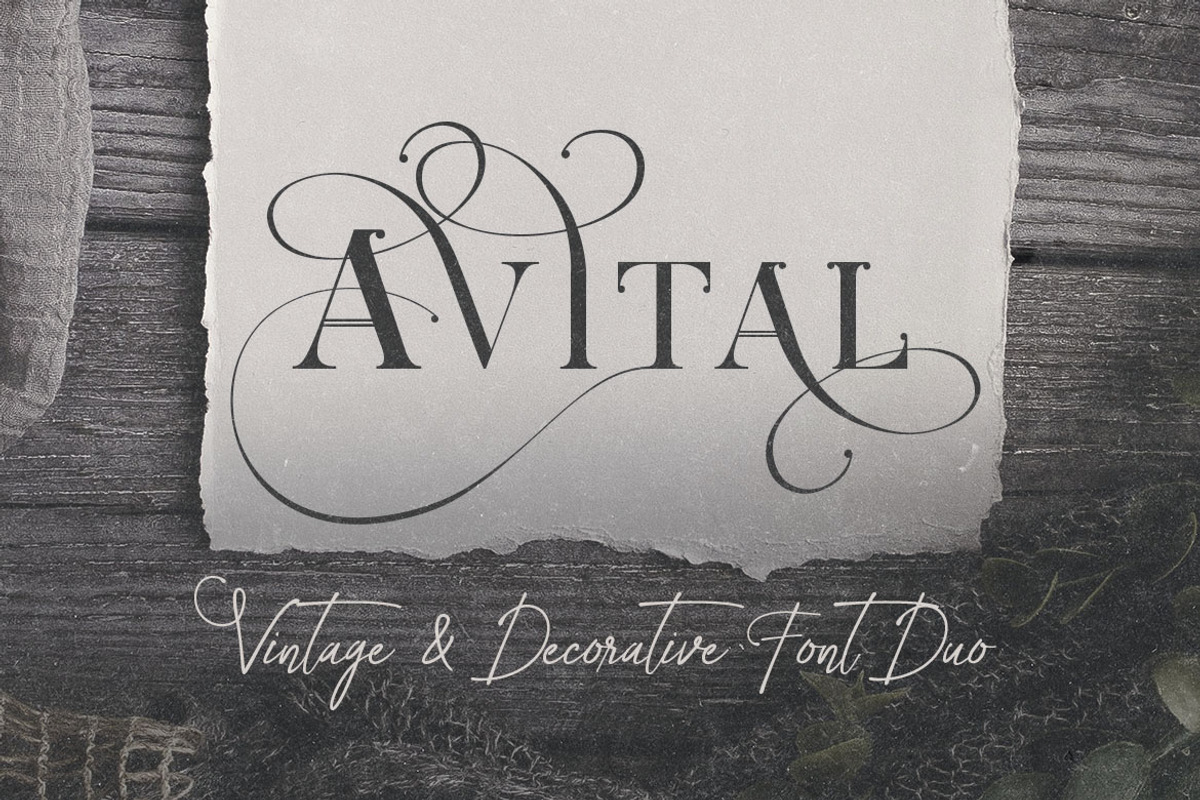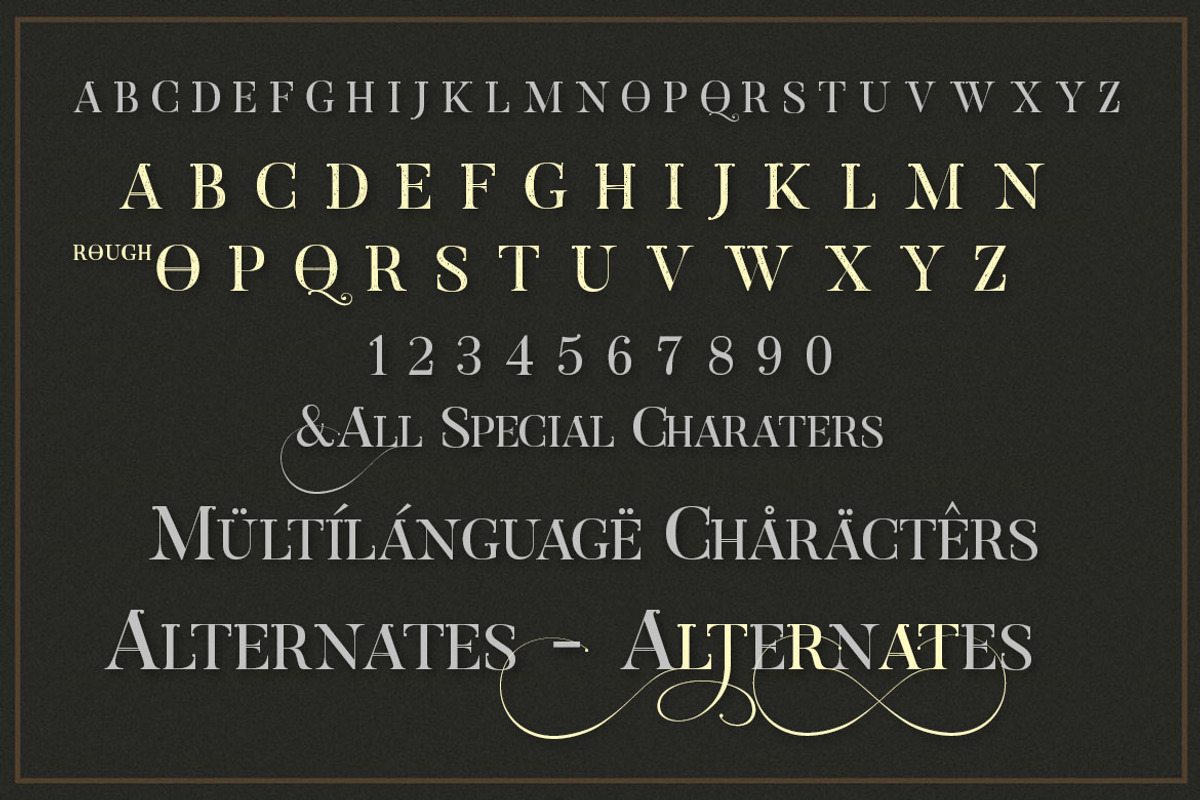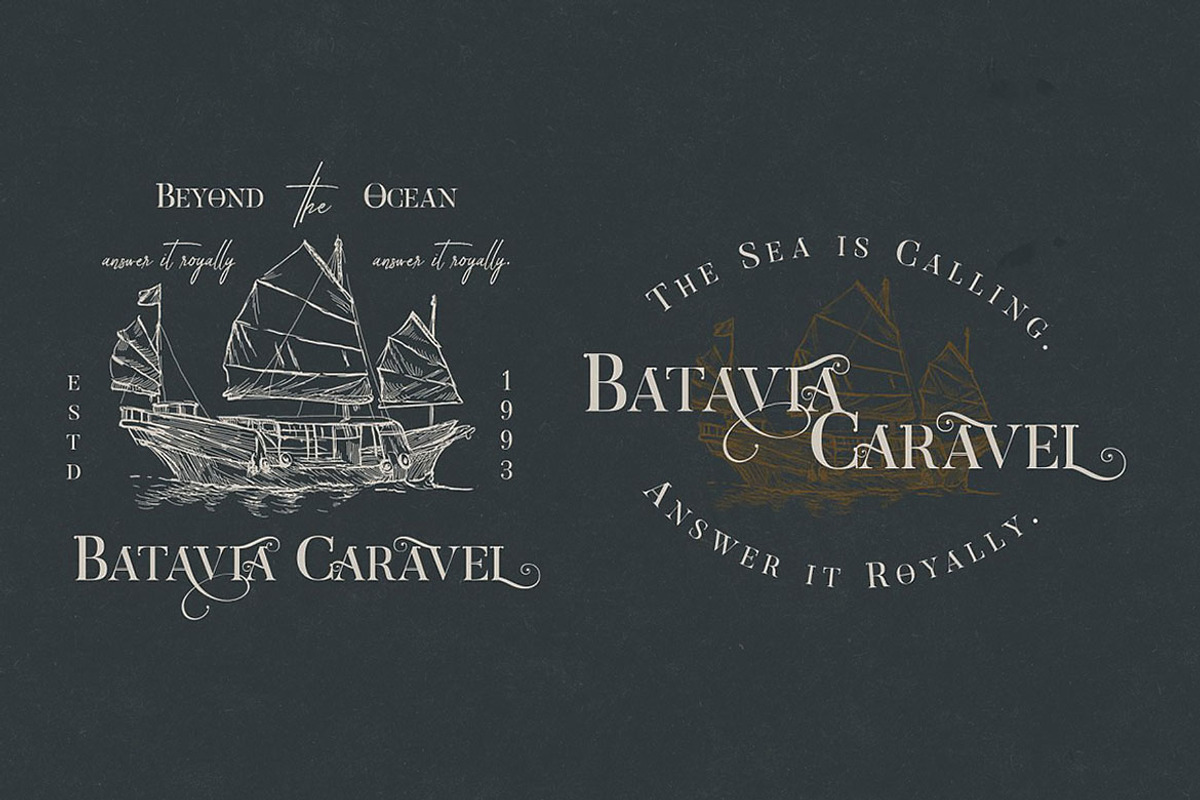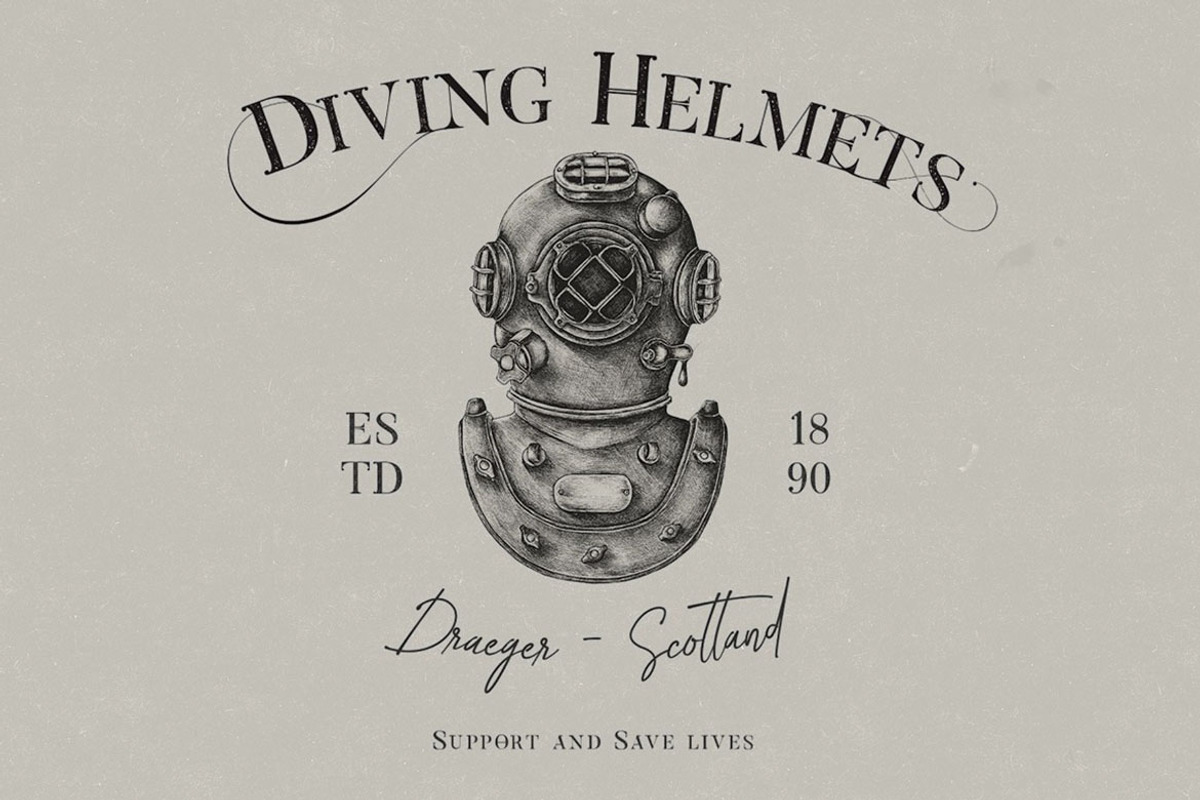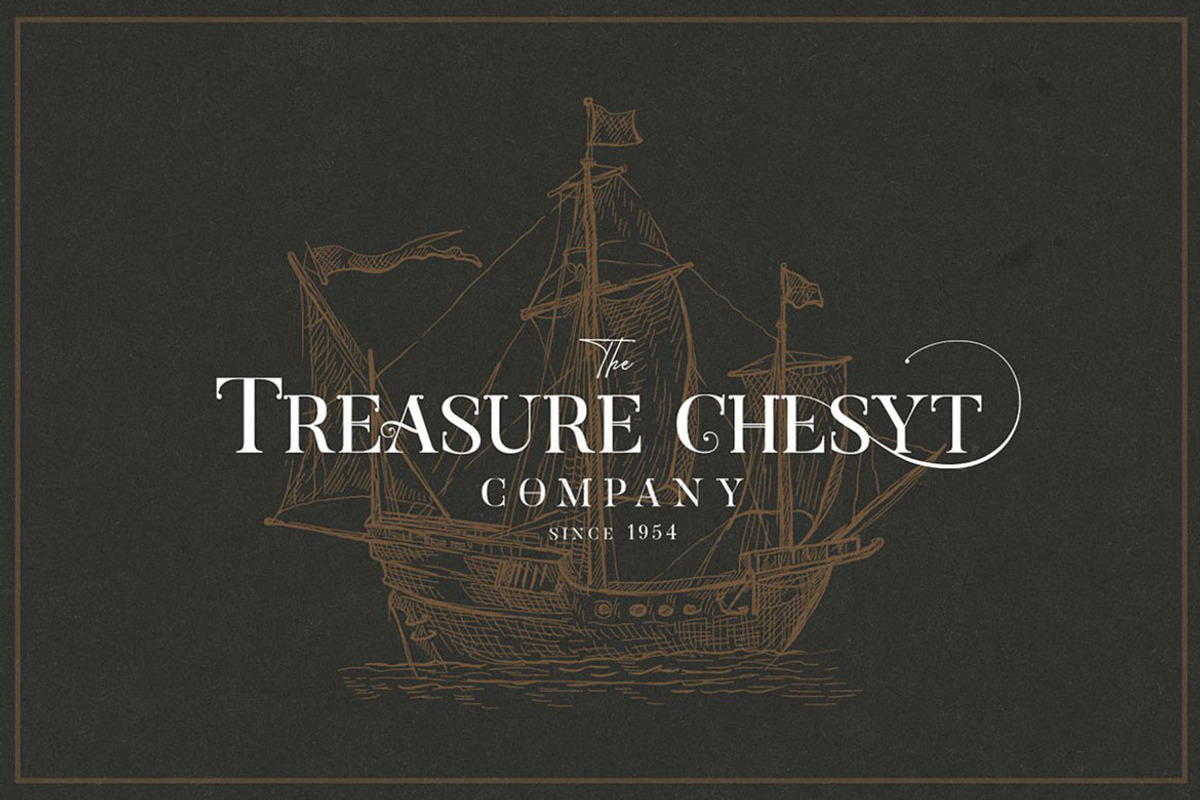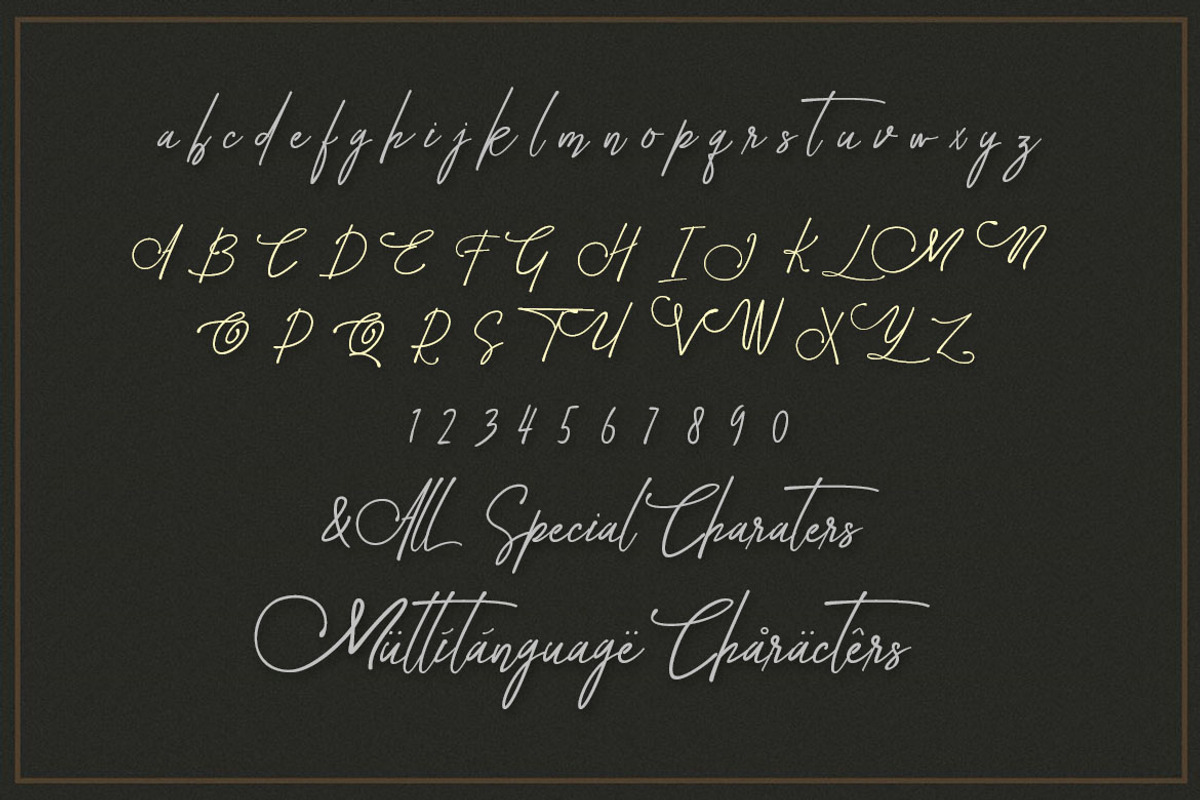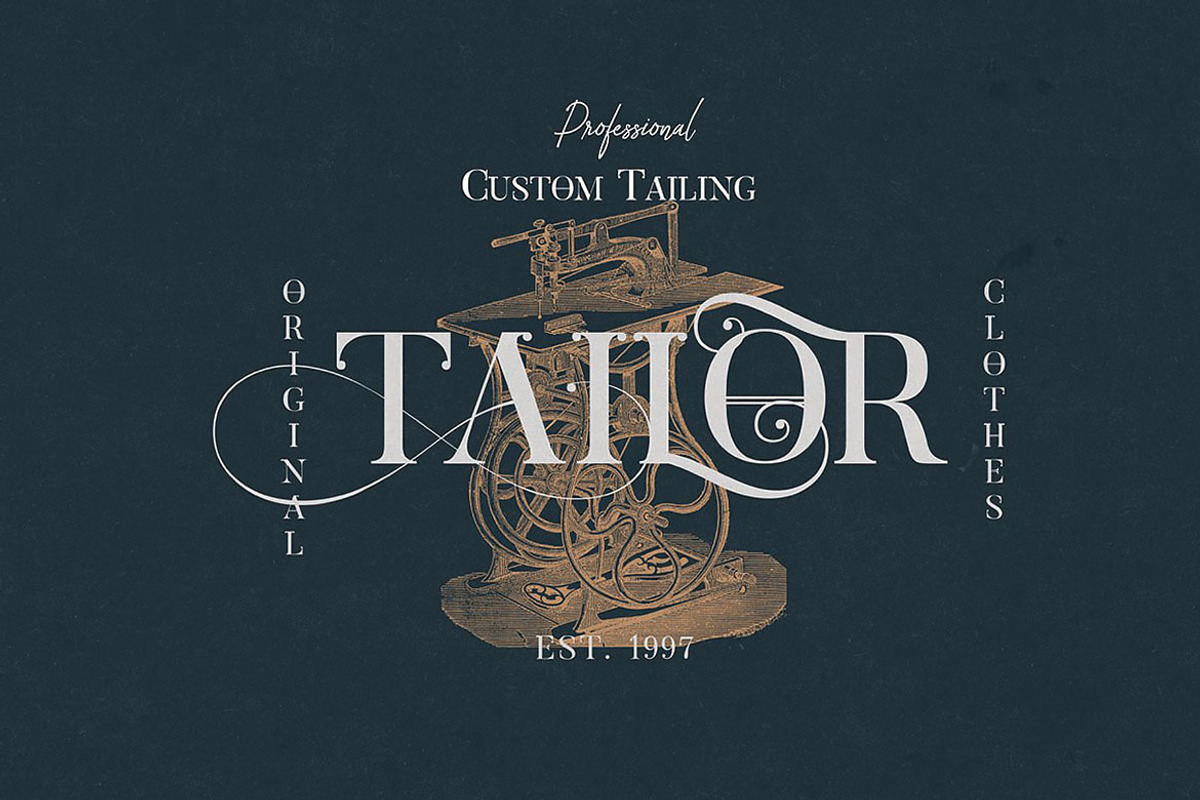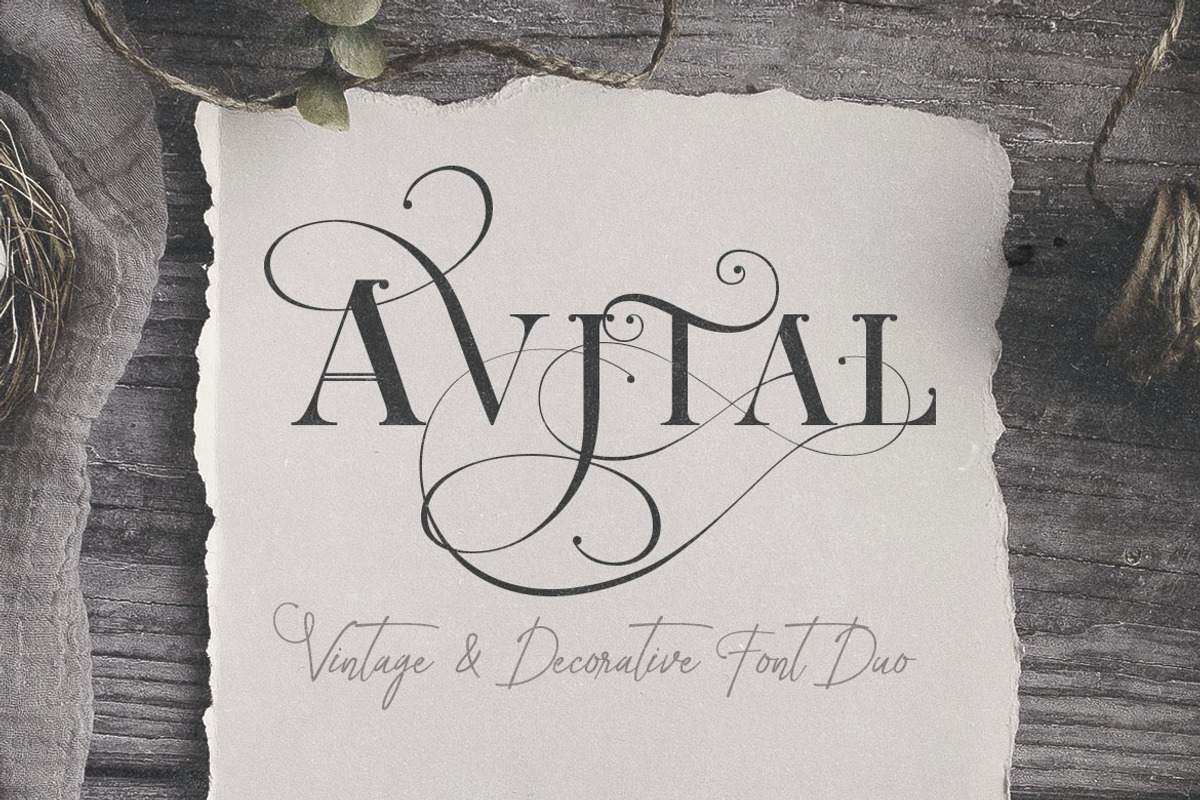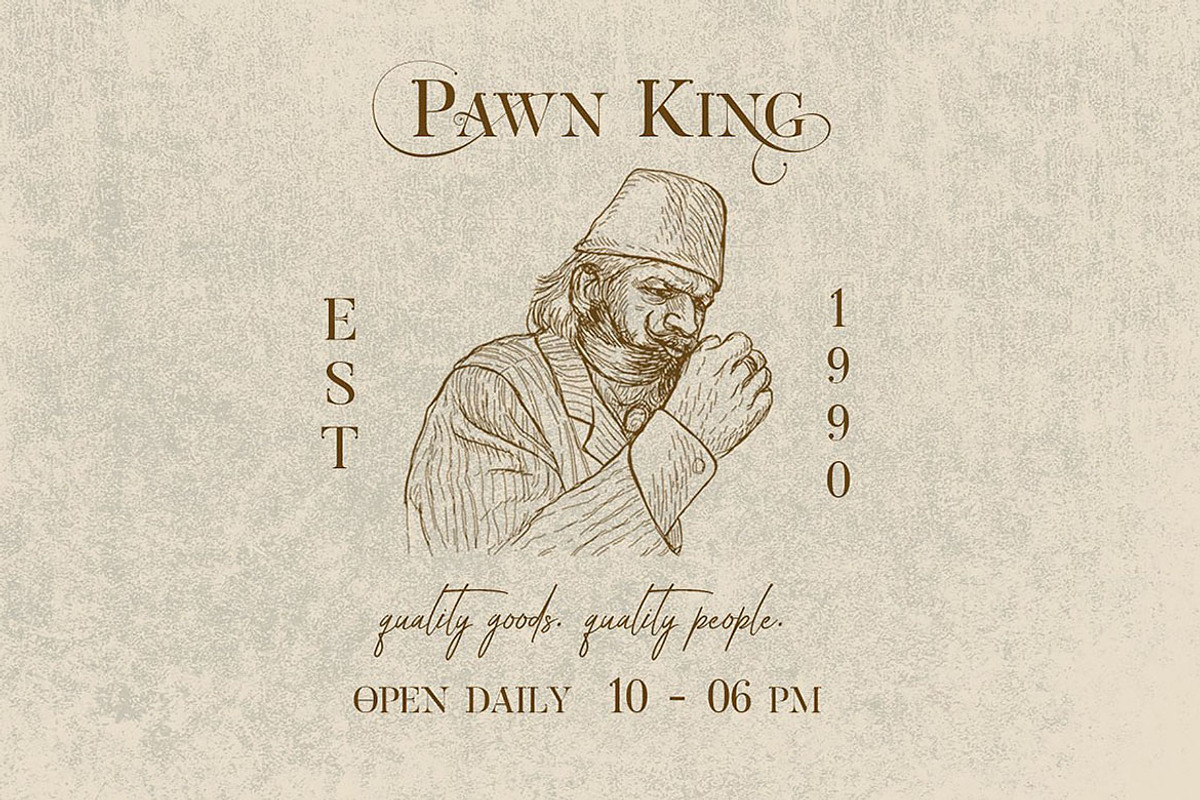
Avital Decorative Font Duo
A font that is inspired by vintage decorative letters or cards. With ornamental vintage style and lot of swashes you can create realistic headers. It works beautifully for any branding and advertising. You'll find a lot of alternate characters, ligatures and multilanguage characters in this elegant serif font. Comes with regular and rough font version + second handwritten script font taht works great with main serif font in authentic vintage combination. Enjoy :)